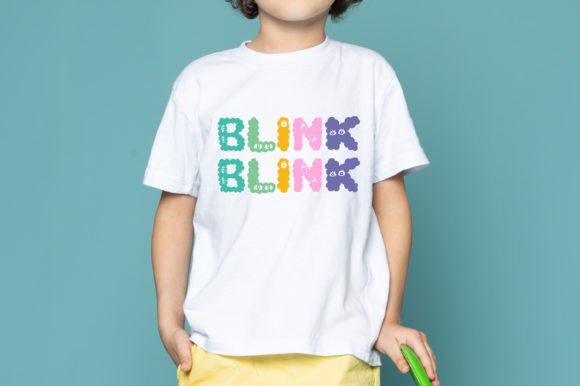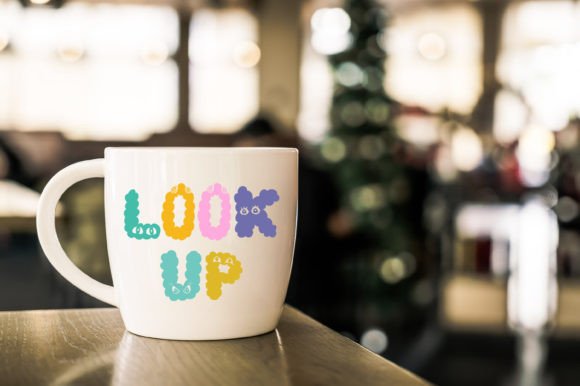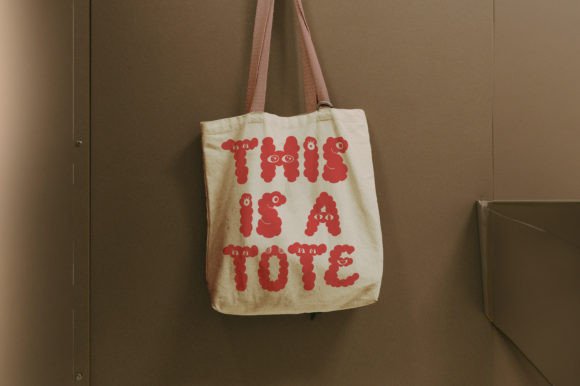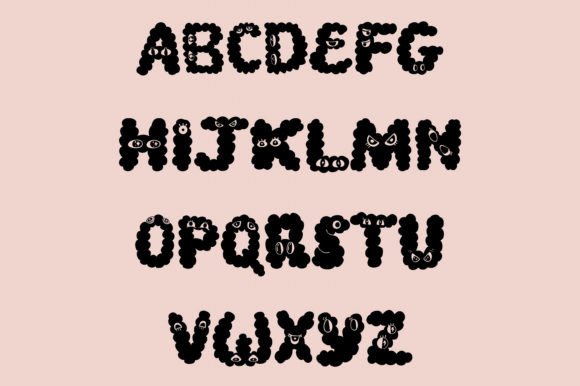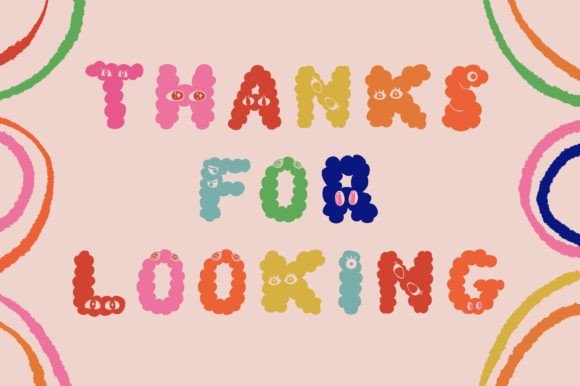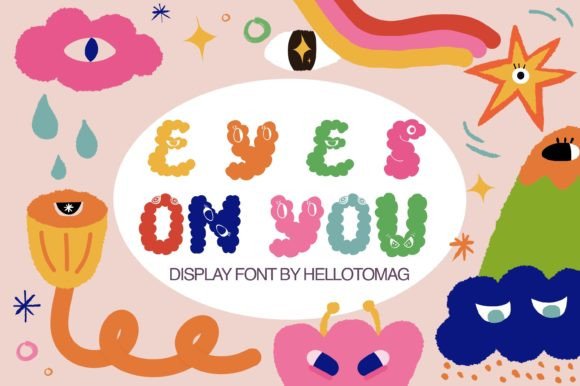
Eyes on You Font: Adding a Touch of Quirkiness to Your Designs
Are you tired of using the same old fonts in your designs? Do you want to add a touch of whimsy and fun to your projects? Look no further than the Eyes on You Font! This unique font is sure to capture attention with its adorable letters, each with its own pair of eyes.
The Cuteness Factor
There’s no denying it – eyes on anything make it cute and/or quirky. It’s a psychological phenomenon that has been exploited in cartoons, memes, and even advertising. The Eyes on You Font takes this concept and runs with it, making each letter from A to Z a charming and playful character in its own right.
Whether you’re designing for a children’s brand, a fashion label, or simply want to add some personality to your craft projects, this font is sure to deliver. The eyes on each letter give the text a sense of personality and friendliness that’s hard to resist.
Uppercase Display Font
The Eyes on You Font is specifically designed as an uppercase display font, making it perfect for headlines, titles, and short phrases. The bold and playful nature of the font ensures that it will stand out in any design, from T-shirt designs to tote bag graphics.
While it may not be suitable for body text or long paragraphs, the Eyes on You Font is ideal for adding a pop of personality to your designs. Use it to create eye-catching titles, captions, or quotes that will grab attention and leave a lasting impression.
The Eyes on You Font is a versatile design asset that’s perfect for both designers and crafters. Whether you’re creating professional graphics for clients or working on personal projects, this font is sure to inspire creativity and fun.
For designers, the Eyes on You Font offers a unique way to differentiate your work and add a touch of whimsy to your designs. For crafters, it’s a great way to add personality to homemade projects, from T-shirts to tote bags, and make them stand out.
Special Features: Many Different Eye Expressions
One of the standout features of the Eyes on You Font is the wide range of eye expressions available. Each letter from A to Z comes with multiple eye options, allowing you to choose the perfect expression to match your design.
Whether you want to convey happiness, surprise, or even mischief, the Eyes on You Font has got you covered. This level of customization is rare in font design, making this font a true gem for designers and crafters.
Tips for Using the Eyes on You Font
Here are a few tips for getting the most out of the Eyes on You Font:
- Use it sparingly: While the Eyes on You Font is playful and fun, it can be overwhelming if overused. Use it for headlines, titles, or short phrases to add a touch of personality to your designs.
- Experiment with colors: The Eyes on You Font looks great in bold, bright colors, but it can also be used in more subtle tones. Experiment with different color combinations to find the perfect fit for your design.
- Mix and match eye expressions: Take advantage of the many different eye expressions available to add variety to your design. Mix and match eyes to create a unique and playful look.
The Eyes on You Font is a unique and playful design asset that’s perfect for designers and crafters looking to add a touch of whimsy to their projects. With its adorable letters, each with its own pair of eyes, this font is sure to capture attention and leave a lasting impression.
Whether you’re designing for a children’s brand, a fashion label, or simply want to add some personality to your craft projects, the Eyes on You Font is a great choice. So why not give it a try and see how it can add a touch of quirkiness and fun to your designs?